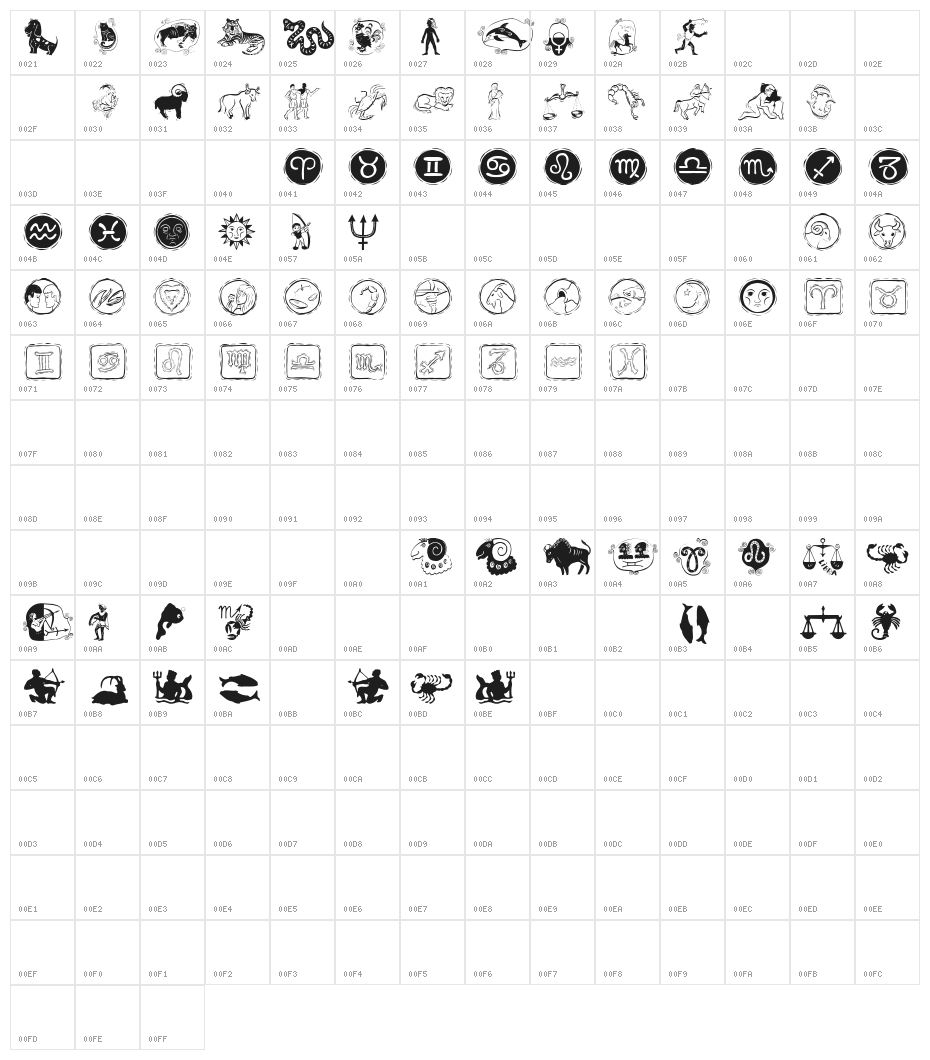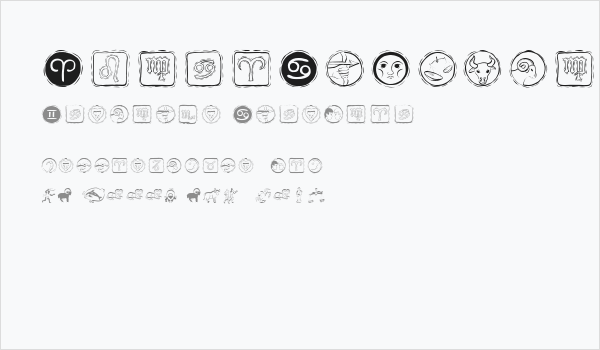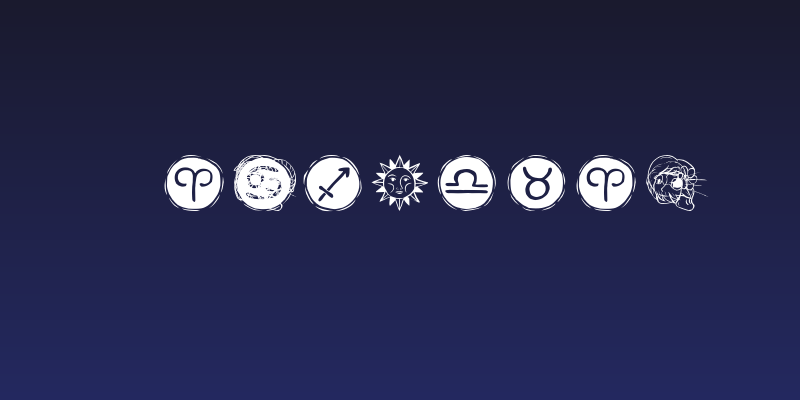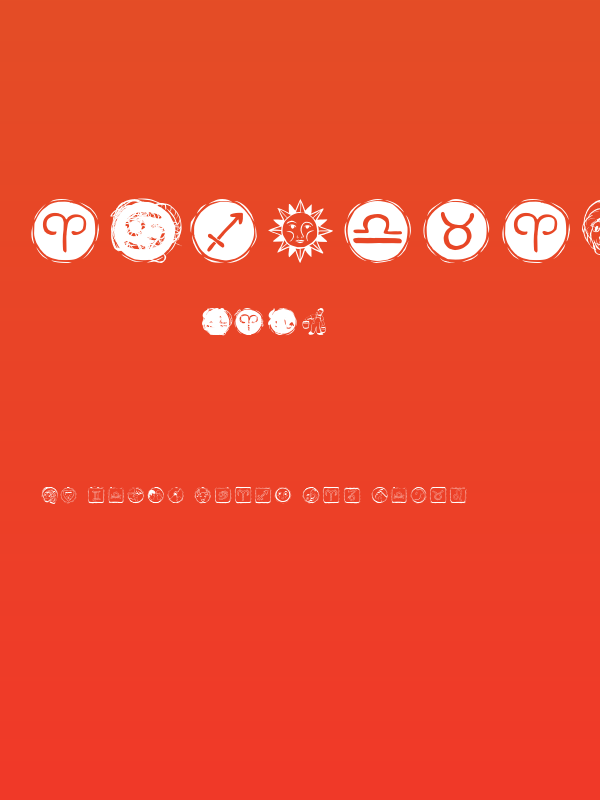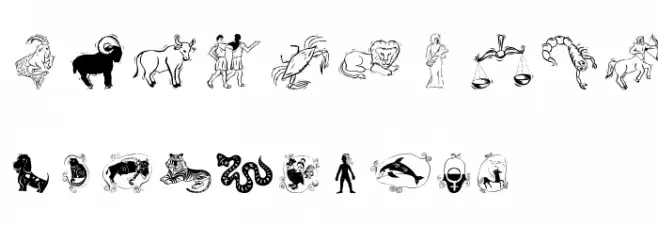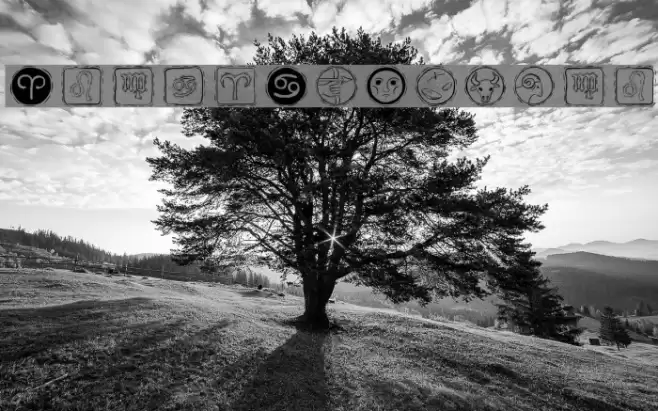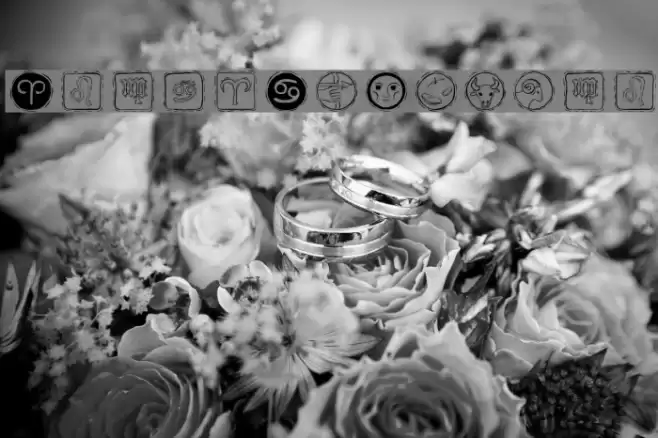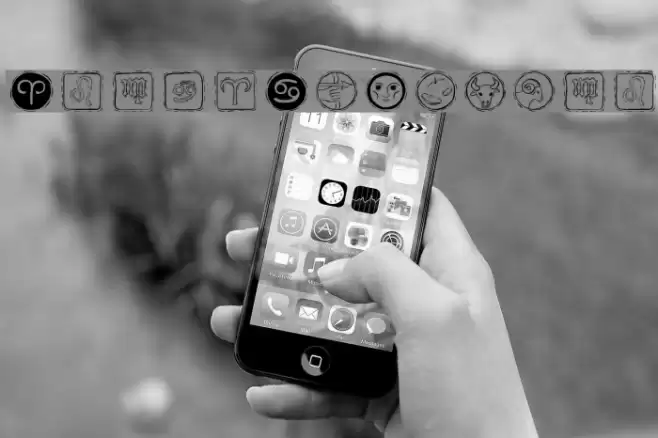
AstroDingbats Font
AstroDingbats Description
This collection features a series of decorative symbols and illustrations inspired by astrology and zodiac signs. Each character is intricately designed, showcasing a variety of celestial motifs and zodiac representations. The symbols are enclosed in circular or square frames, adding a structured yet artistic flair. The designs range from simple line art to more detailed illustrations, capturing the essence of each zodiac sign with unique artistic interpretations. The overall style is whimsical and decorative, making it suitable for projects that require a touch of mysticism or celestial themes.
| Use Case | Logos, Decorative elements, Themed publications |
| Proposed Projects | Ideal for astrology-themed projects, horoscopes, mystical branding, tarot card designs, and decorative elements in publications. |